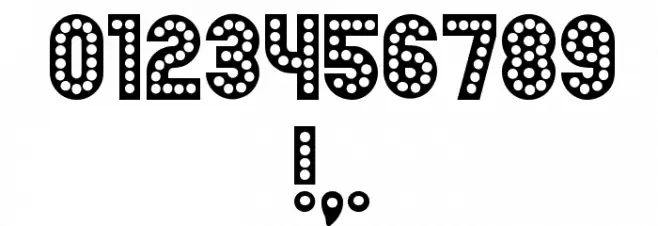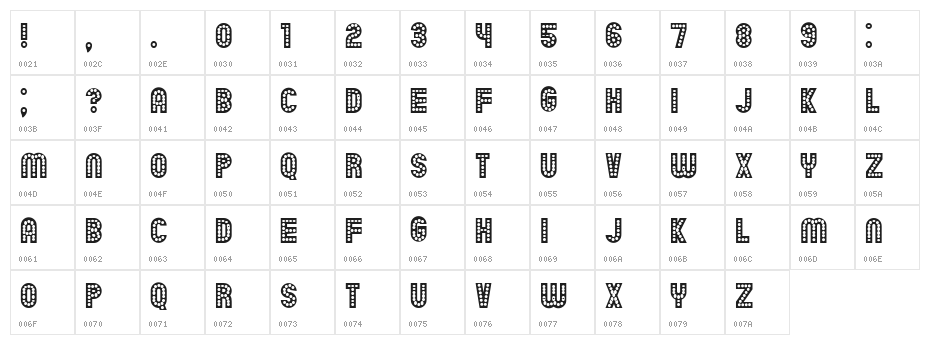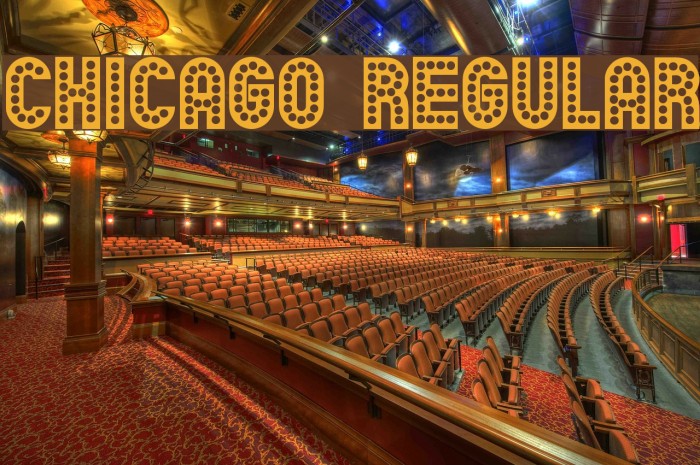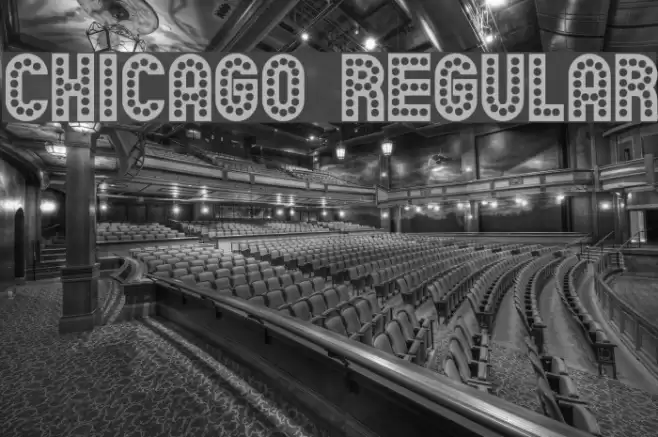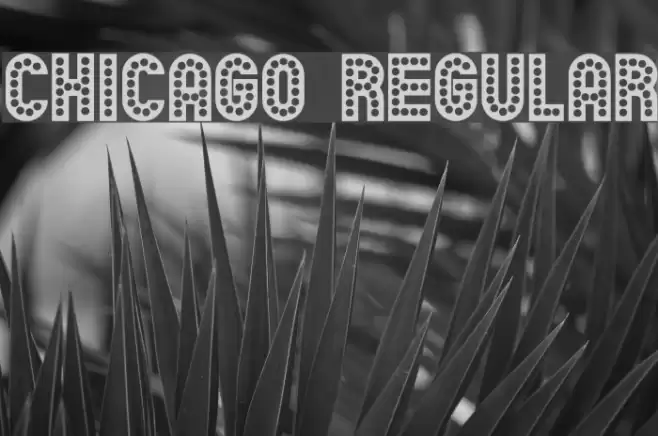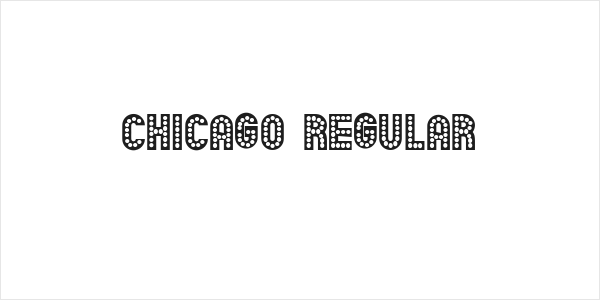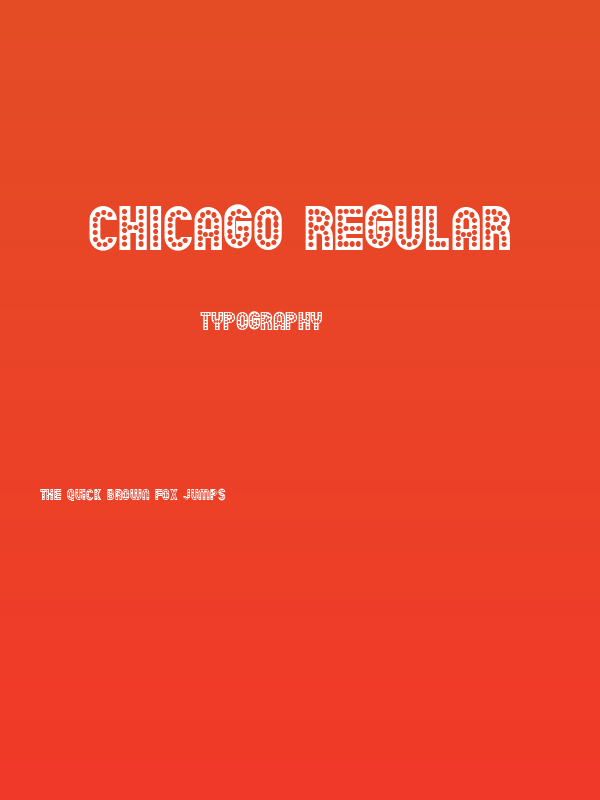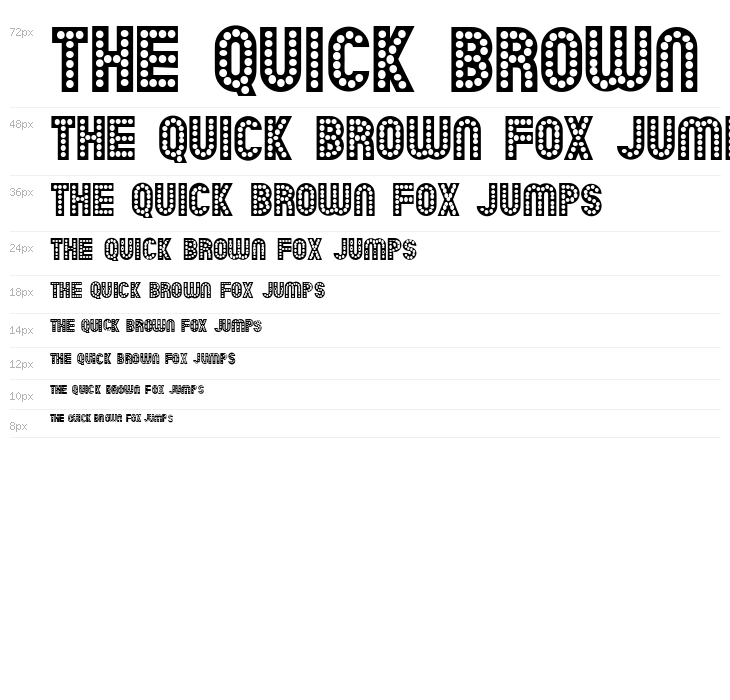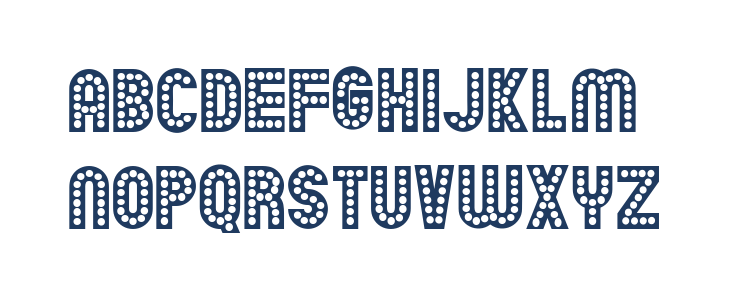
Chicago Regular Font
Chicago Regular Description
This font features a bold, decorative style with a unique dotted pattern filling each character. The letters are uppercase with a consistent width and rounded edges, giving them a playful yet structured appearance. The dots within the characters create a high-contrast look, making the font stand out prominently. The numbers and special characters follow the same design, ensuring a cohesive look across all elements. This font is ideal for eye-catching displays and designs that require a touch of whimsy and boldness.
| Proposed Projects | Ideal for posters, signage, event invitations, and any design needing a bold, decorative touch. |